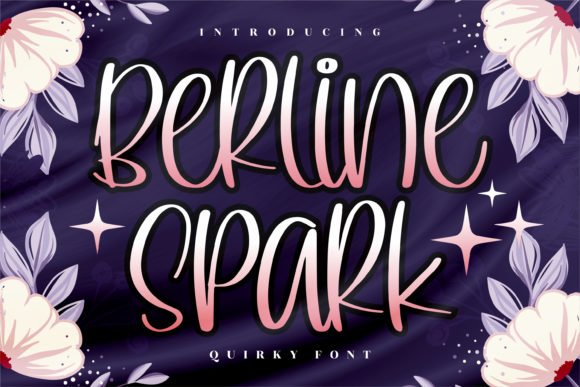
Introduction to Berline Spark Font
Berline Spark is a quirky looking and whimsical handwritten font.
Whether you are using it for cartoon-related designs, children’s games, quotes, titles, brand names, book covers, posters, or just any creation that requires a touch of beauty, this font is a great choice .
Key Features of Berline Spark Font
Why Choose Berline Spark Font?
Berline Spark Font offers exceptional quality and versatility, making it a valuable addition to your design toolkit. Whether you’re creating for personal projects or commercial use, Berline Spark Font delivers professional results.